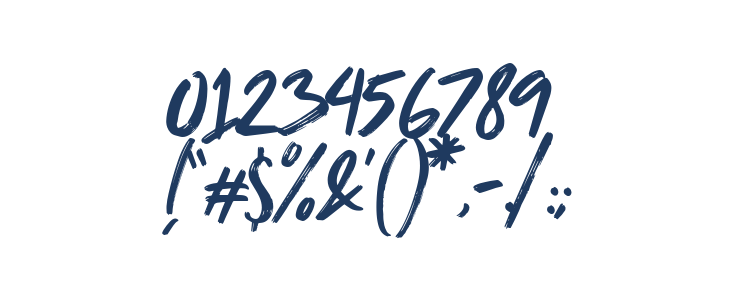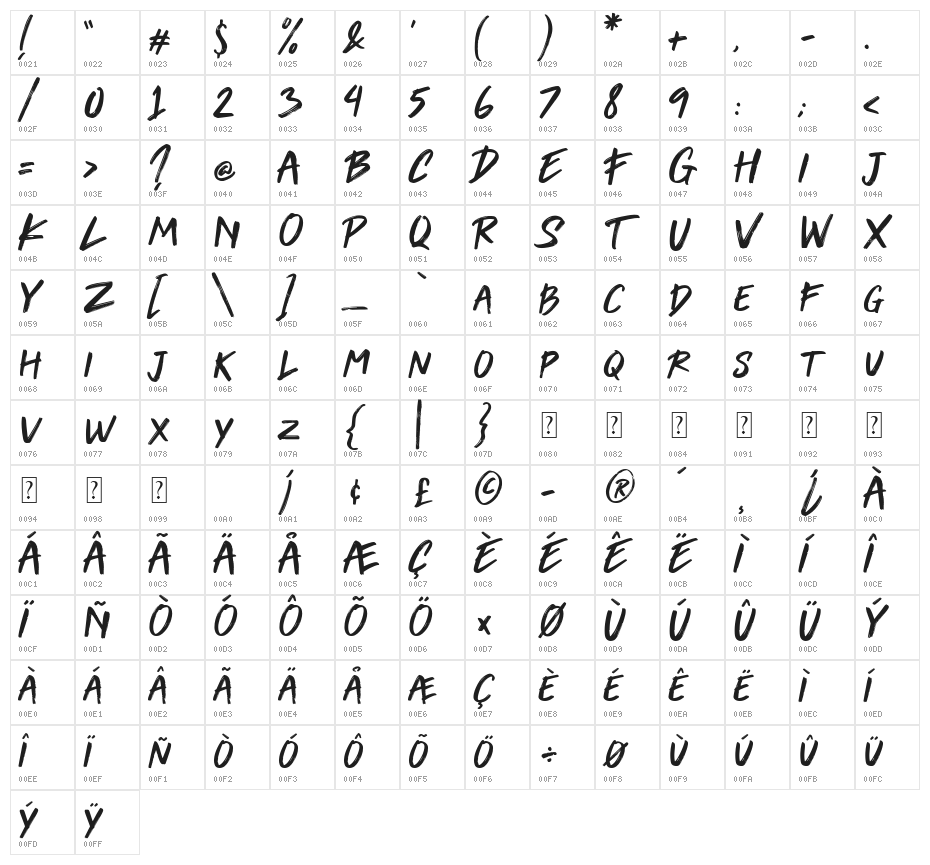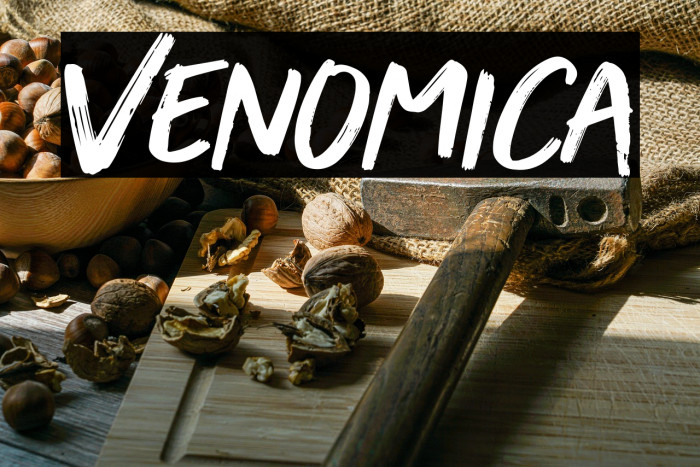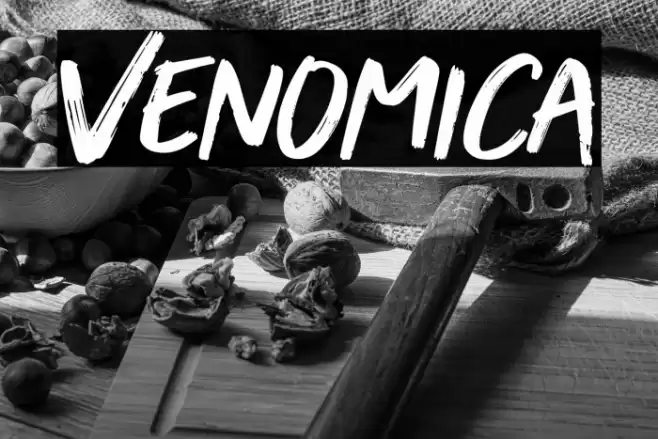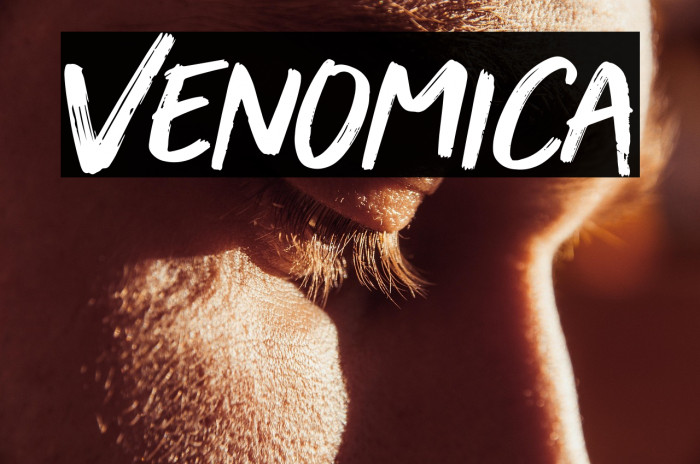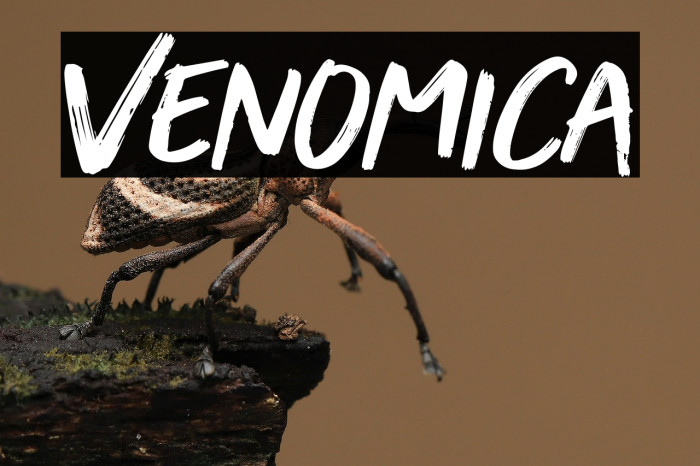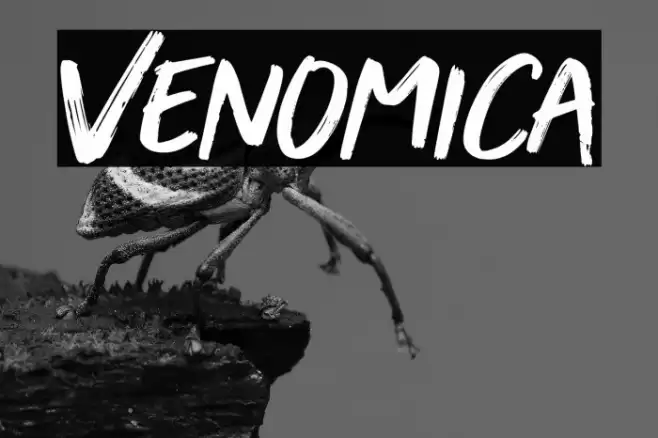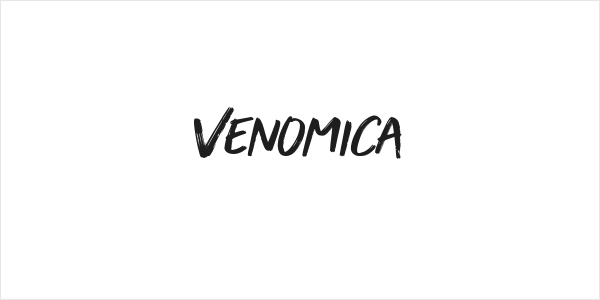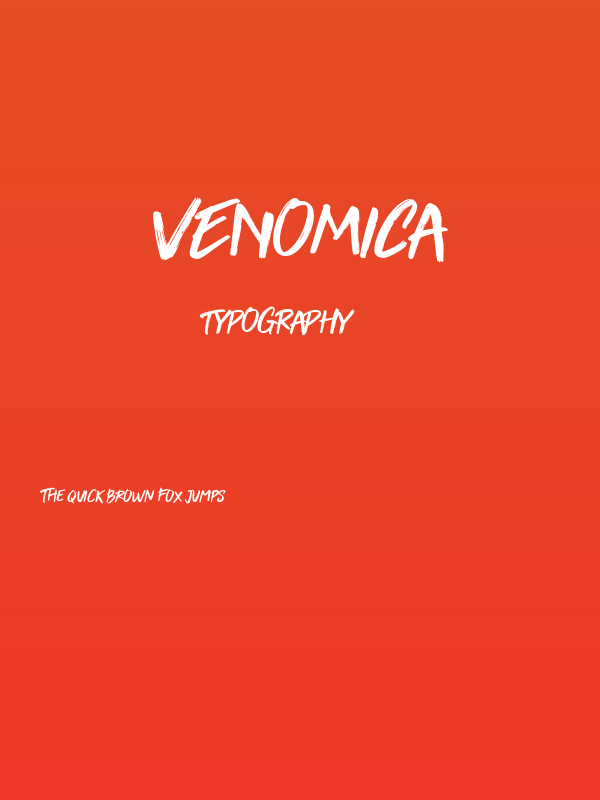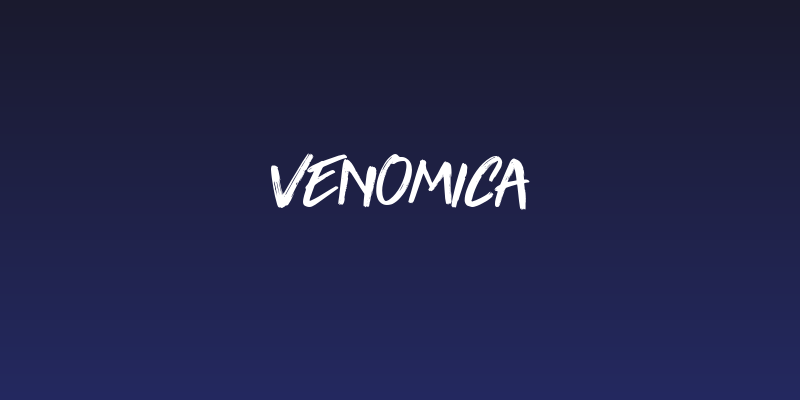
Venomica Font
Venomica Description
This font exudes a bold and energetic style, characterized by its brush-like strokes that convey a sense of movement and dynamism. The letters are slightly slanted, adding to the impression of speed and fluidity. The uppercase and lowercase letters maintain a consistent style, with thick and thin variations in the strokes, creating a high contrast that enhances readability. The numerals and special characters follow the same expressive design, making them stand out with a unique flair. This font is ideal for projects that require a strong visual impact and a modern, edgy feel.